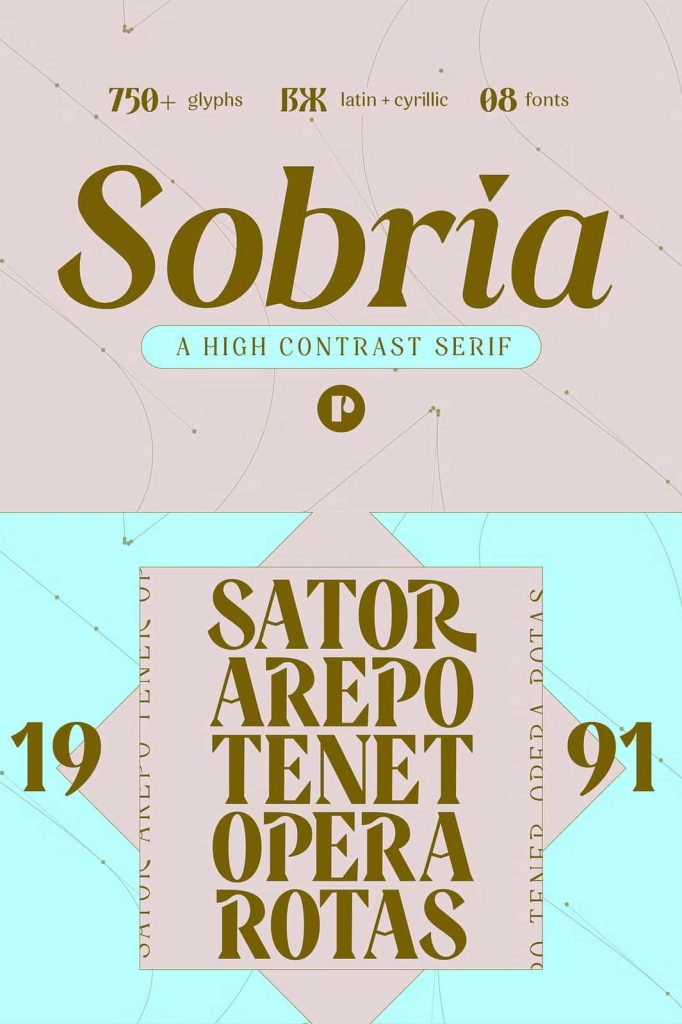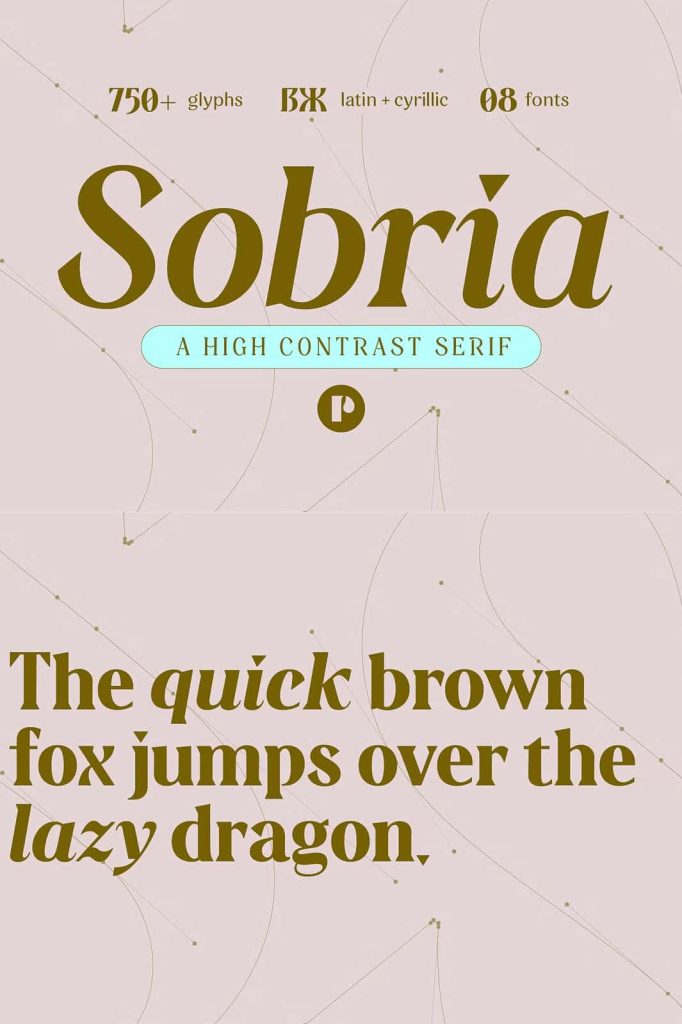
Sobria is the steady and more grounded counterpart of Deliria. Poetic nonetheless, Sobria features the very same triangular serifs as its sibling, and its pointy terminals suggest finesse. The high contrast of its strokes evokes a sense of impervious calmness, making it hard to miss. Perhaps that’s why it will suit better for display purposes, and even for headings and headlines across media. On this very website, you may find headings set in Sobria — possibly, an older version of it.